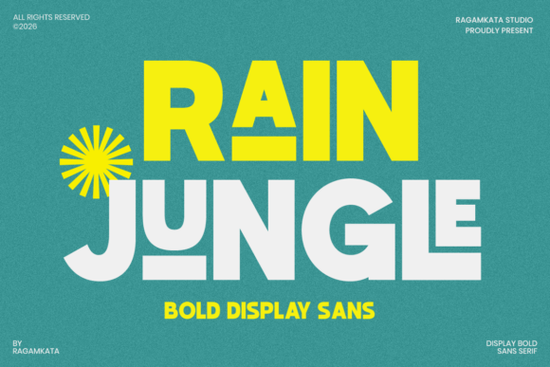
If you're looking for a bold sans serif font that grabs attention without sacrificing modern style, the Rain Jungle Font might be exactly what your next project needs. Designed with chunky geometric shapes and a playful yet confident structure, it’s built for headlines, logos, packaging, and anything where visual impact matters. Whether you’re a small business owner creating product labels, a print-on-demand seller designing t-shirts, or a hobbyist working on social media graphics, Rain Jungle offers both personality and practicality.
What makes Rain Jungle stand out from other bold display fonts?
Unlike many display fonts that lean too heavily into novelty or minimalism, Rain Jungle strikes a balance. Its letterforms are bold enough to command attention at large sizes but retain clean lines that keep them readable. The geometric foundation gives it a contemporary feel, while subtle quirks like slightly tapered strokes and open counters add character without overwhelming the design.
This versatility makes it especially useful for:
- Lifestyle branding – think fitness studios, wellness products, or eco-conscious goods
- Food and beverage packaging – where shelf appeal is critical
- Social media banners – that need to stop scrollers in their tracks
- Merchandise designs – from tote bags to mugs with bold messaging
If you’ve used fonts like Highland Wanders or Crisp Edge, you’ll notice Rain Jungle has a more assertive presence less refined, more expressive. It’s not trying to blend in; it’s meant to lead.
How does it compare to similar sans serif display fonts?
Creative Fabrica offers several bold sans serifs, each with its own flavor. For example, Katur Coffee leans into warmth and organic curves, making it ideal for café branding or artisanal products. Qunotz, on the other hand, uses sharp angles and tight spacing for a tech-forward or urban vibe.
Rain Jungle sits somewhere in between structured but energetic, geometric but friendly. It doesn’t mimic handwriting like some display fonts, nor does it go ultra-minimal like corporate sans serifs. Instead, it delivers confident clarity with just enough flair to feel human.
Where should you (and shouldn’t you) use Rain Jungle?
This font shines in short-form applications:
- Logo wordmarks
- Poster headlines
- Product packaging titles
- Instagram story text overlays
- Event banners or flyers
Avoid using it for body text or long paragraphs its bold weight and condensed rhythm reduce readability at small sizes. Also, if your brand identity calls for elegance, subtlety, or tradition, this isn’t the right choice. Rain Jungle thrives in contexts that celebrate energy, youthfulness, or bold self-expression.
Pairing tip: Combine it with a neutral, lightweight sans serif (like Montserrat Light or Lato) for contrast. The simplicity of the secondary font lets Rain Jungle take center stage without visual competition.
Who is this font really for?
Rain Jungle works best for creators who need typography that speaks loudly literally and visually. That includes:
- Print-on-demand sellers creating statement apparel or home goods
- Small food brands launching snack lines or cold brew labels
- Graphic designers building campaign assets for events or promotions
- Crafters making vinyl decals, stickers, or greeting cards with punchy messages
If your audience responds to confidence and modern aesthetics, this font supports that message without needing extra effects or embellishments.
And if you’re exploring options, don’t overlook complementary choices like Rain Jungle itself it’s worth testing alongside alternatives to see which aligns best with your project’s tone.
- Is my design meant to grab attention quickly?
- Do I have enough negative space around the text to let the bold forms breathe?
- Am I using it for headlines or short phrases not paragraphs?
- Does my brand voice match its energetic, modern personality?
If you answered “yes” to most of these, Rain Jungle could be your new go-to for high-impact typography that still feels intentional and crafted.